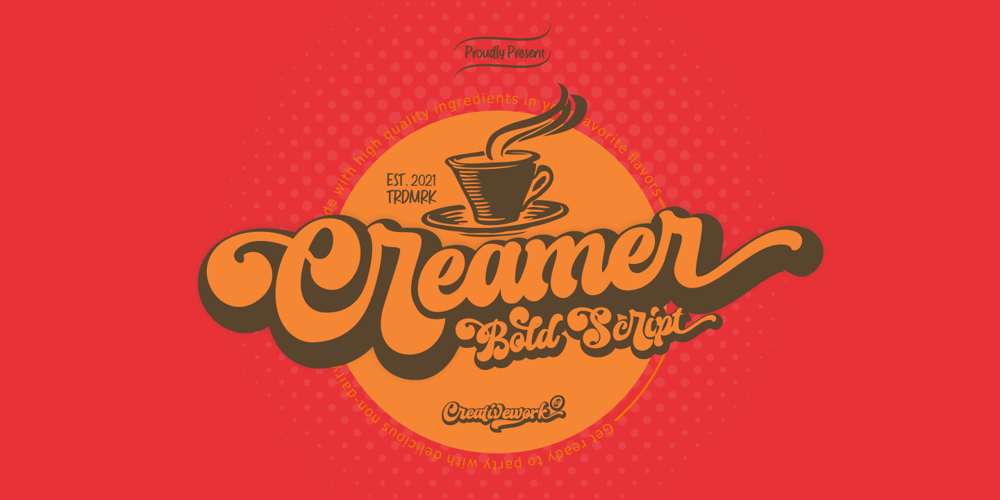
Creamer
Creamer font
Creamer Font Family was designed by Daddi Daryawan and published by Creativework Studio. Creamer contains 2 styles and family package options. Creamer is a gorgeous and bold handwritten font, crafted to give your headlines and logotype projects a stylish touch. This font reads as strong, confident, and dynamic and can add tons of nostalgic character to your designs.Creamer is PUA encoded which means you can access all of the glyphs and swashes with ease.